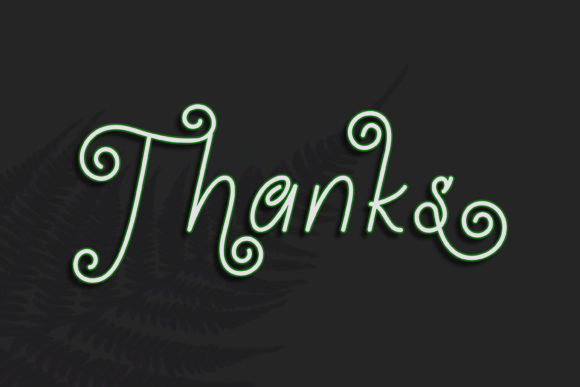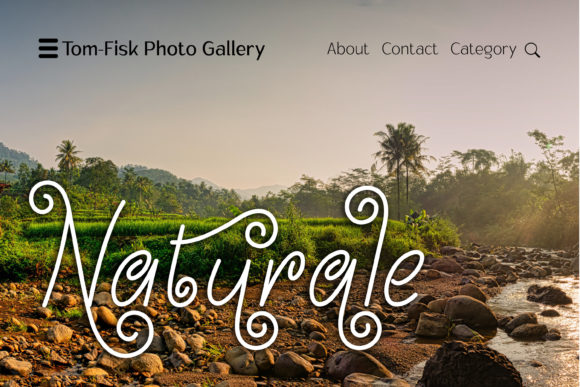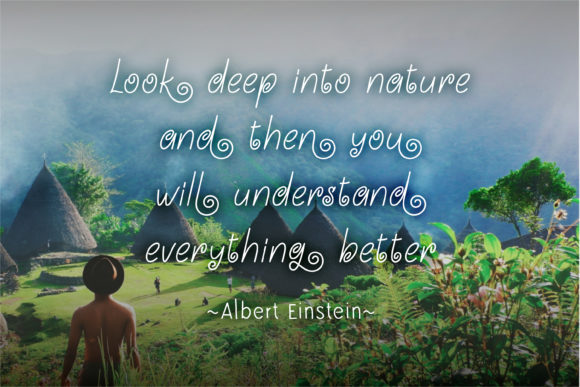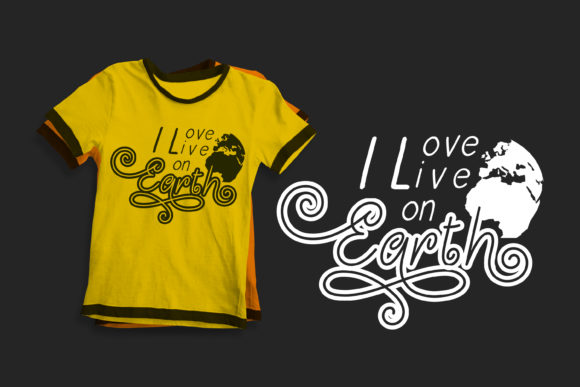
About Mourint Font
Mourint is a dainty and fun handwritten font made with joy and a creative appearance in mind. This typeface will create a beautiful impression on every crafty idea! This font is PUA encoded which means you can access all of the glyphs and swashes with ease!